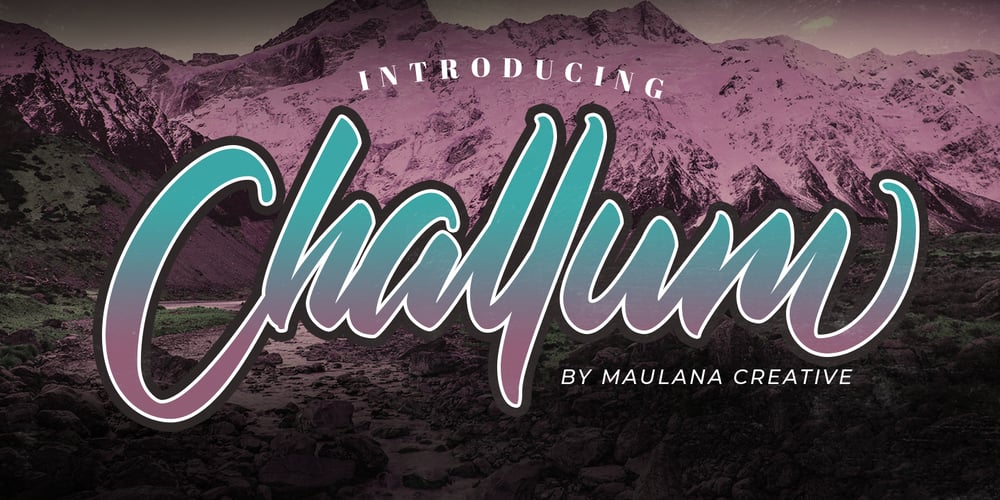
Challum Font Family was designed by Gilang Maulana and published by Maulana Creative. Challum contains 1 styles and family package options. Give your designs an authentic handcrafted feel. �Challum Handwritten Script Font� is perfectly suited to signature, stationery, logo, typography quotes, magazine or book cover, website header, clothing, branding, packaging design and more.Thanks for use this font.MaulanaCreative